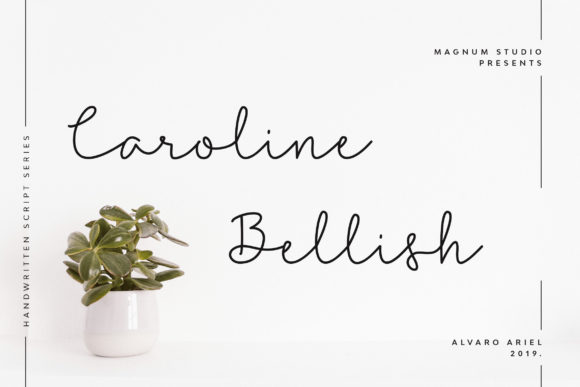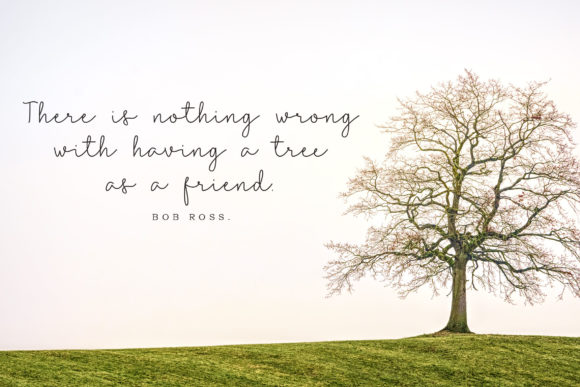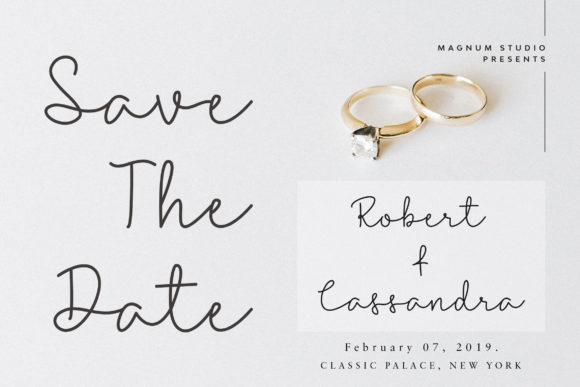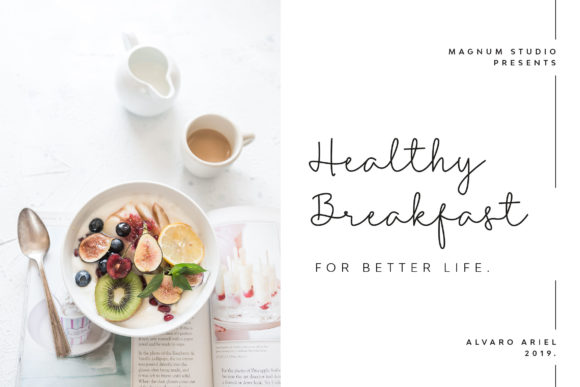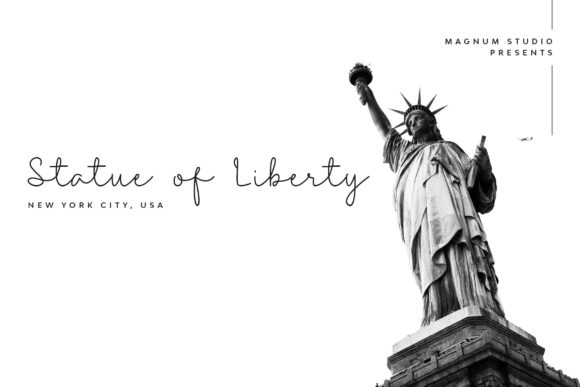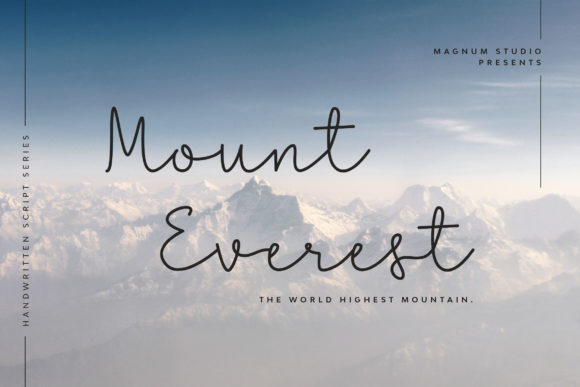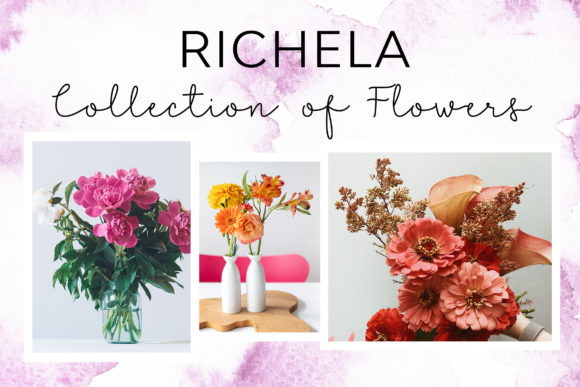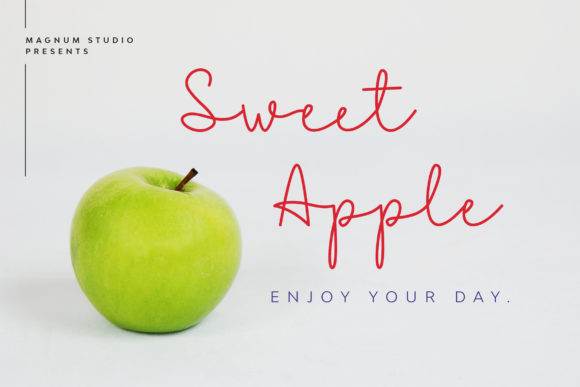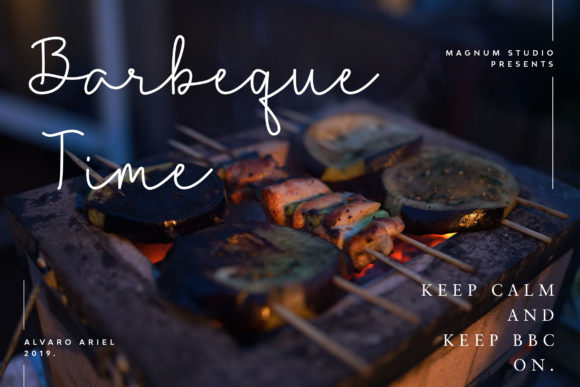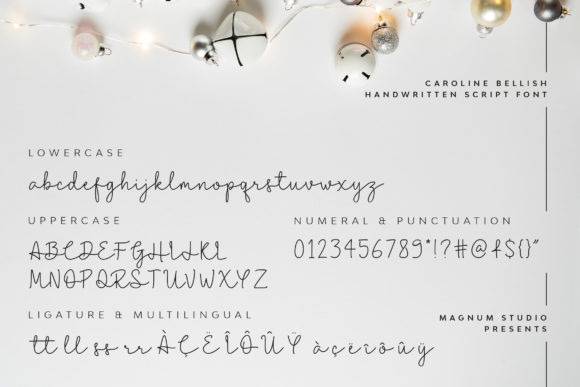
Caroline Bellish Font
Caroline Bellish is a fresh & modern script font with one-of-a-kind style. Use it for any design project that requires a personalized appearance!